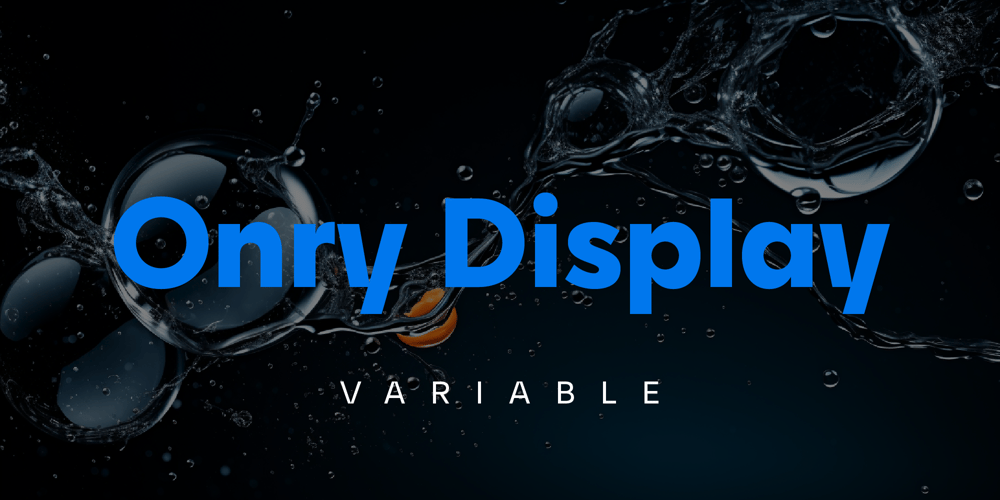
Onry Display Variable Font Family was designed by Nikolay Savchuk and published by NicolassFonts. Onry Display Variable contains 1 styles and family package options. Onry Display Variable Font is the latest addition to the versatile Onry Display font family. This font offers great flexibility, making it excellent for both headline and body copy usage. Onry Display Variable Font ensures clarity in print materials and seamless reproduction on TV screens alike. Elevate your designs with the sophistication and versatility of Onry Display Variable Font.